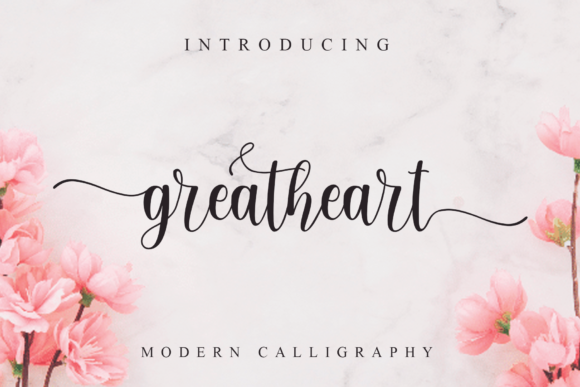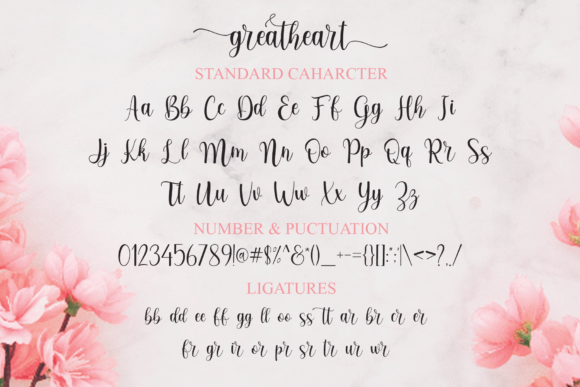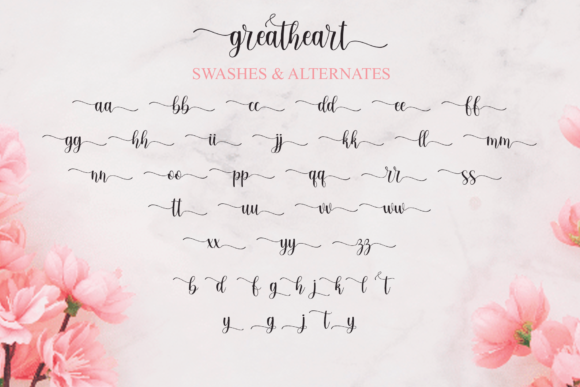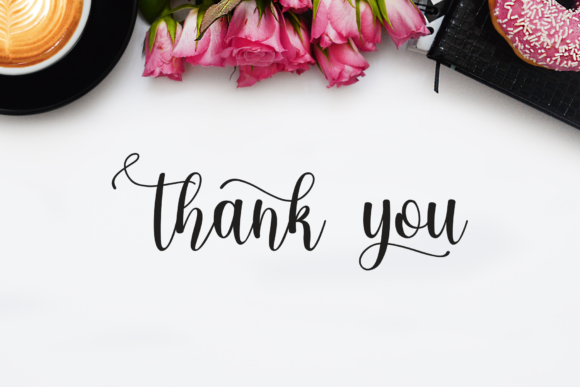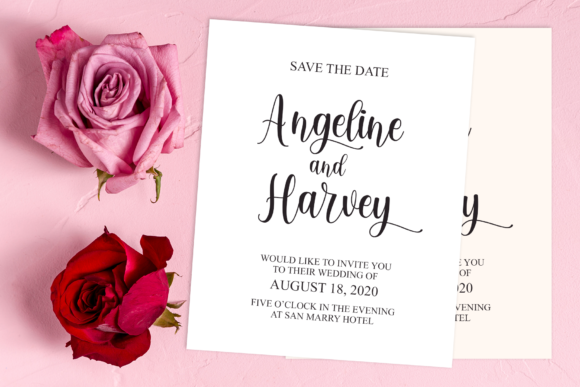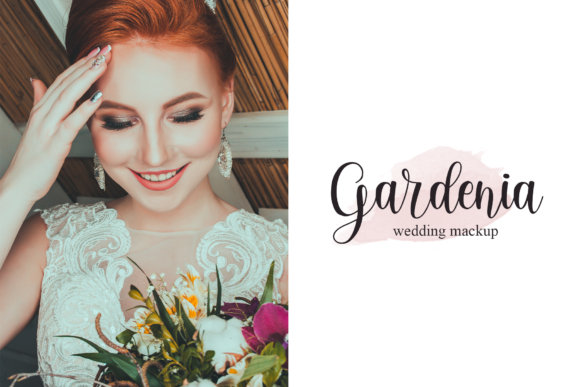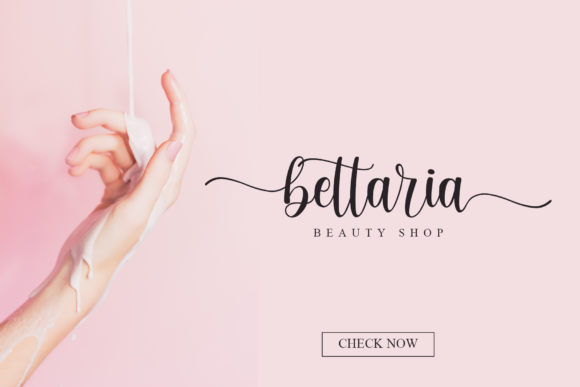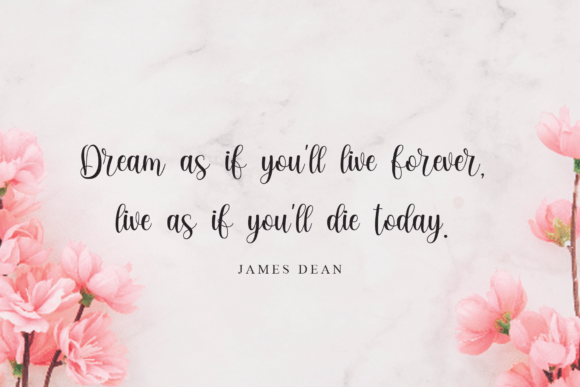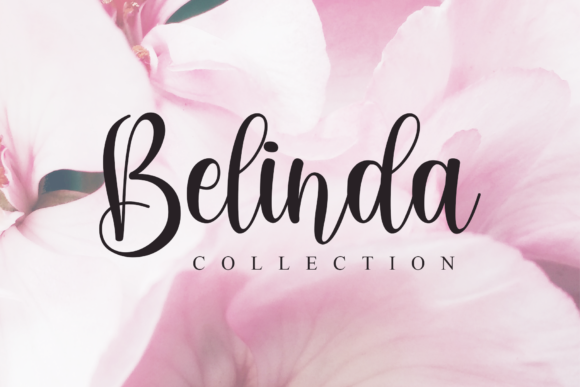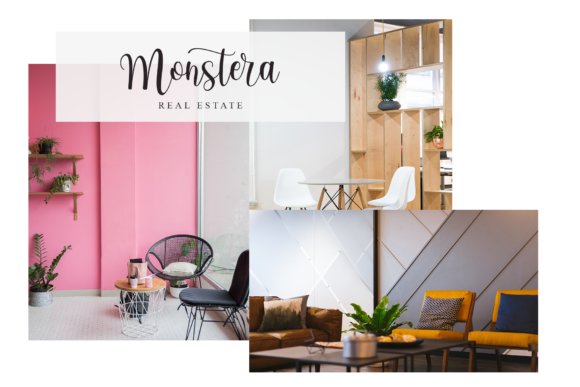
Greatheart Font
About Greatheart Font
Greatheart is a luxurious handwritten font. Fall in love with its authentic feel and use it to create gorgeous wedding invitations, beautiful stationary art, eye-catching social media posts, and cute greeting cards. This font is PUA encoded which means you can access all of the amazing glyphs and swashes with ease! It also features a wealth of special features including alternate glyphs and ligatures.